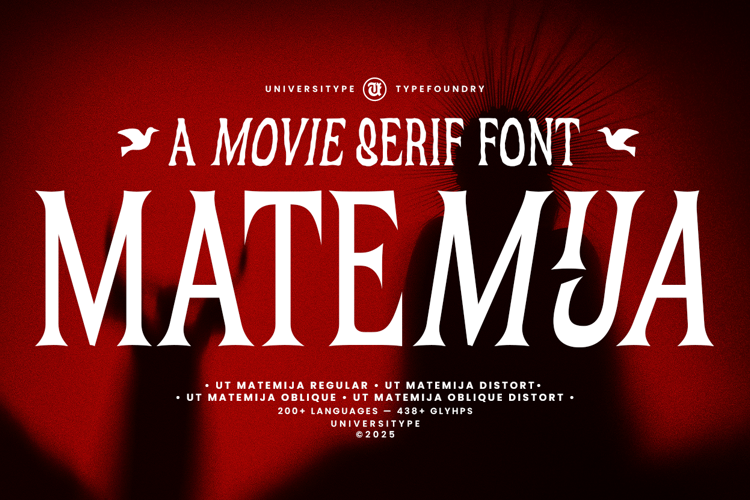
UT Matemija Font
UT Matemija is a cinematic serif typeface built around tension, mood, and storytelling. Inspired by classic movie title cards and psychological horror cinema, it blends sharp wedge serifs with softly warped curves to create a dramatic yet controlled presence. The contrast feels deliberate, the rhythm slightly uneasy, giving every word a sense of atmosphere.
Designed primarily for display use, UT Matemija shines when emotion matters as much as readability. Whether clean or distorted, each style keeps its character intact, letting designers shape the tone without losing consistency.